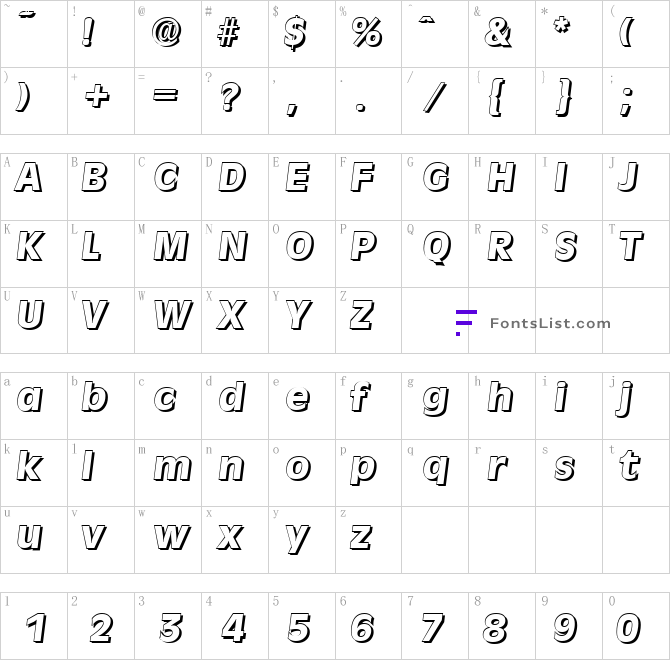
- Font Name:ArthurBeckerShadow-ExtraBold
- Subfamily:Alts:ArthurBeckerShadow-ExtraBold-Italic
- Full Name:ArthurBeckerShadow-ExtraBold-Italic
- PostScript:ArthurBeckerShadow-ExtraBold-Italic
ArthurBeckerShadow-ExtraBold-Italic.ttf is a very beautiful artistic font, ArthurBeckerShadow-ExtraBold-Italic.ttf is widely used in the design and printing of various books and pictures,ArthurBeckerShadow-ExtraBold-Italic.ttf has a strong visual impact,ArthurBeckerShadow-ExtraBold-Italic.ttf is a commonly used font in newspapers, magazines and books, and is used in posters, e-commerce Poster design, store design, logo design, font design and other fields.ArthurBeckerShadow-ExtraBold-Italic.